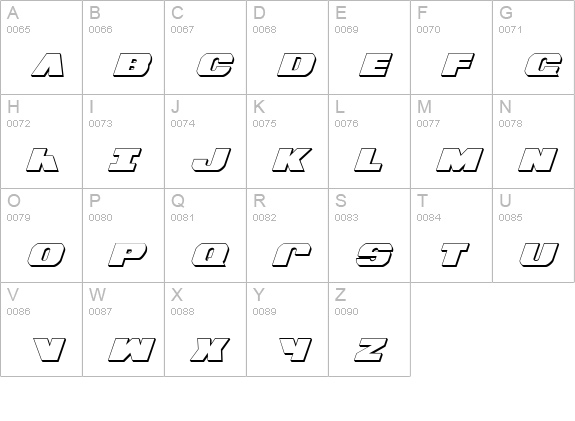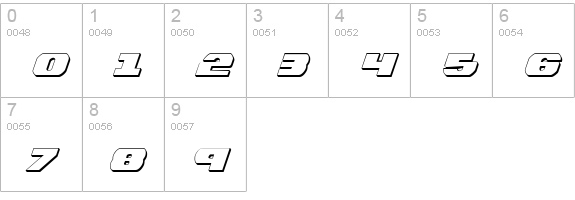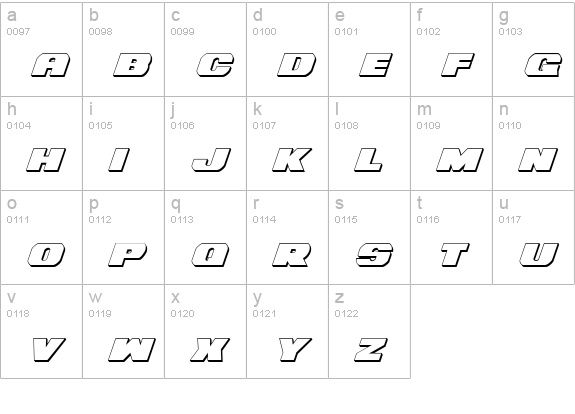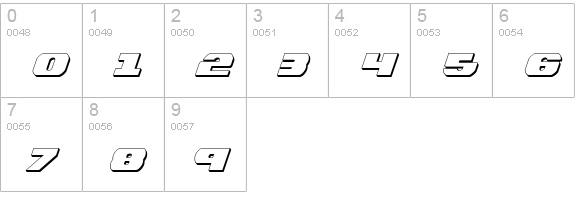
Bummer 3D Italic is a distinctive, italic variant in the Bummer typeface family \xE2\x80\x94 well suited to design and typography projects.
Introducing the captivating and modern Bummer 3D Italic font, designed to make your projects stand out with its unique and dynamic appearance. This eye-catching typeface combines sleek italic styling with a three-dimensional effect, adding depth and personality to your designs. Best of all, Bummer 3D Italic font is completely free to use, making it a perfect choice for creatives on a budget or anyone looking to add a touch of contemporary flair to their work. You can easily download this font for free at FontsMarket.com, where you'll find a wide range of high-quality fonts to enhance your projects. Upgrade your designs today with the effortlessly stylish Bummer 3D Italic font.